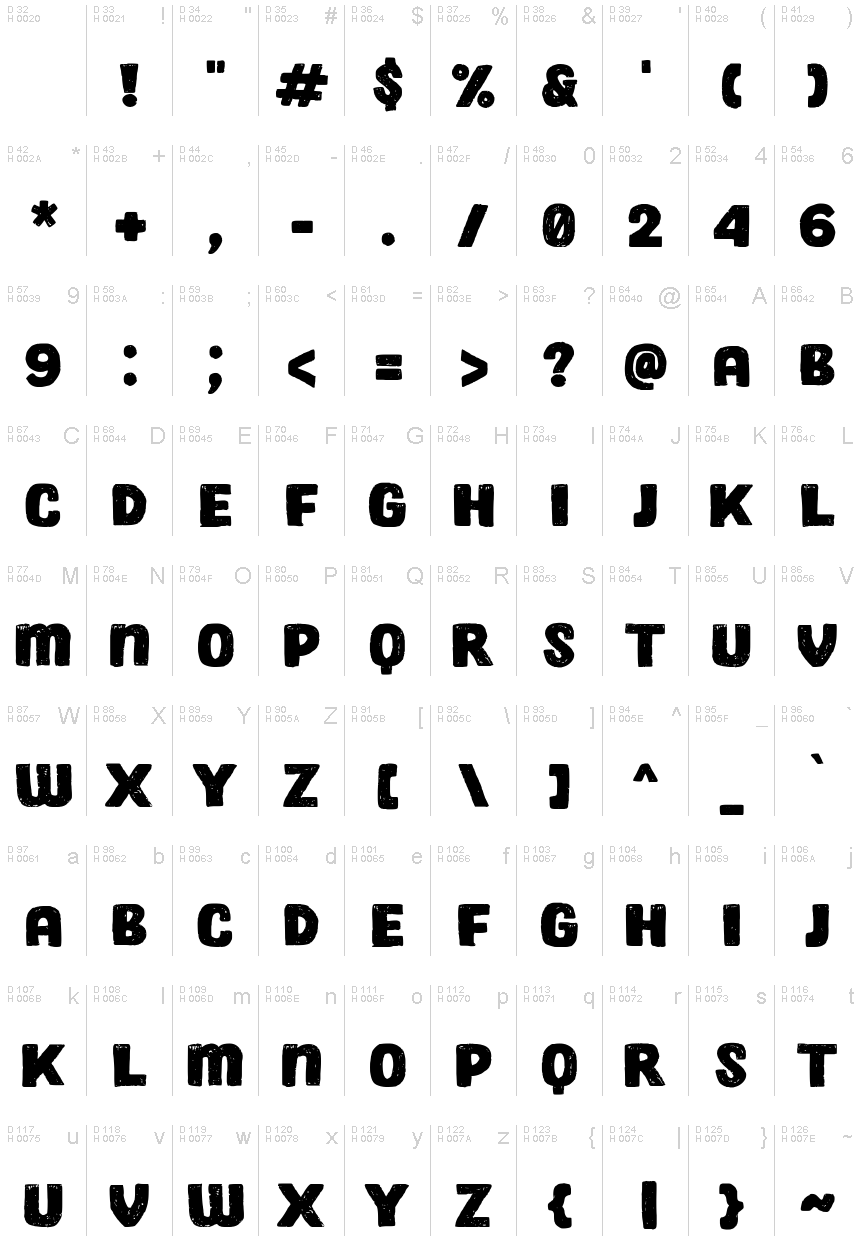
Super Pulp
Super Pulp is a strikingly bold typeface that declares its presence with a playful and energetic flair. Characterized by its chunky, textured forms, this font embodies a cartoonish style that captivates and engages. The exaggerated shapes resonate with vibrancy, making it ideal for designs that aim to stand out.
This dynamic font shines in contexts like posters, packaging, or any creative project where fun and impact are paramount. Whether in children’s books or promotional materials, Super Pulp effortlessly infuses liveliness and attention-grabbing charm into any visual landscape. Its eclectic appeal ensures it can transform ordinary text into extraordinary statements across various platforms.